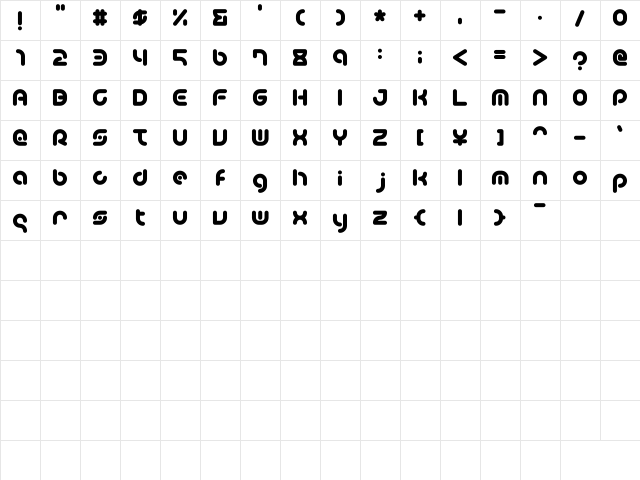
Teacher_A Regular
Design Context for Teacher_A Typeface
Teacher_A is a composed and adaptable typeface that performs quietly and consistently across a wide range of design contexts.